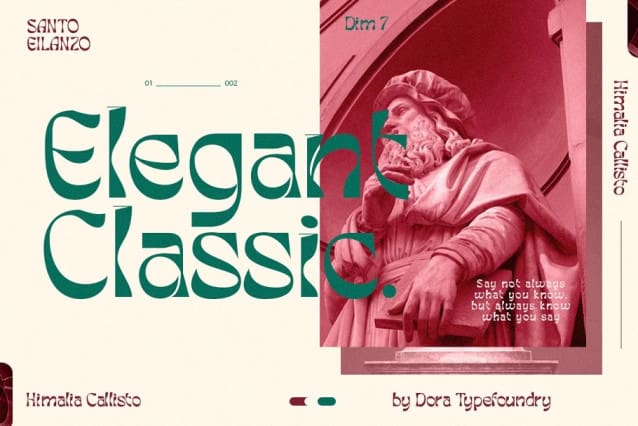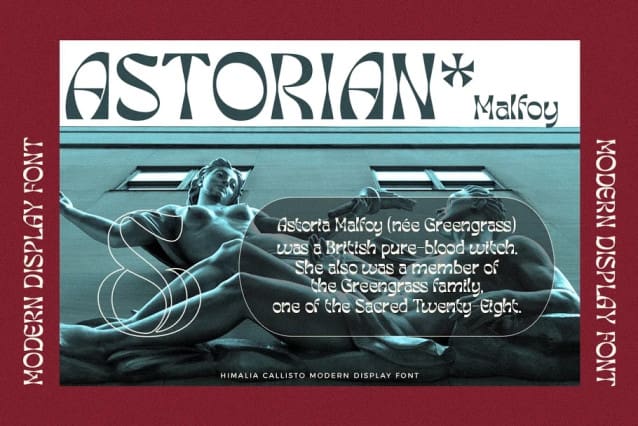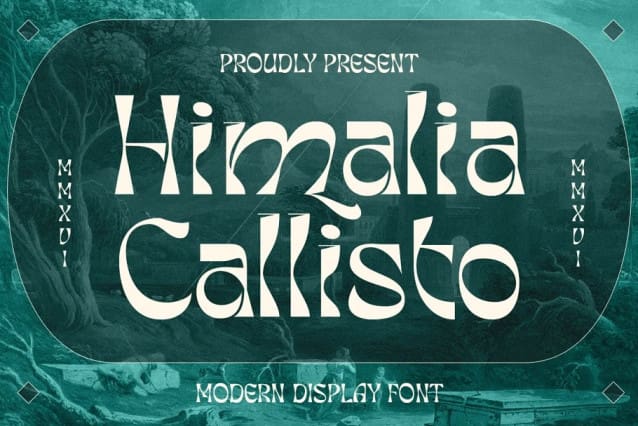
Himalia Callisto Font
Himalia Callisto Font a unique display font, fun, experimental typography With a classic feel combined with modern trends. ready to logos, titles, branding, magazines, album covers, book covers, films, clothing designs, quotes, invitations, flyers, posters, greeting cards, product packaging, printed quotes for any project you can think of.
Himalia Callisto is equipped with uppercase, lowercase, numbers and full punctuation + Multi language support and PUA-encode.